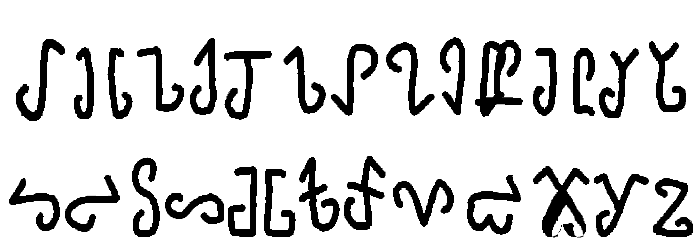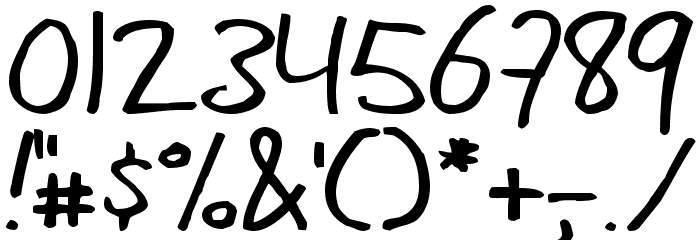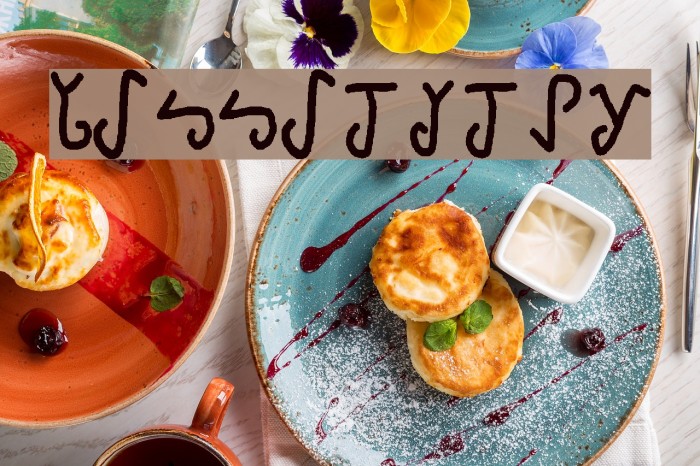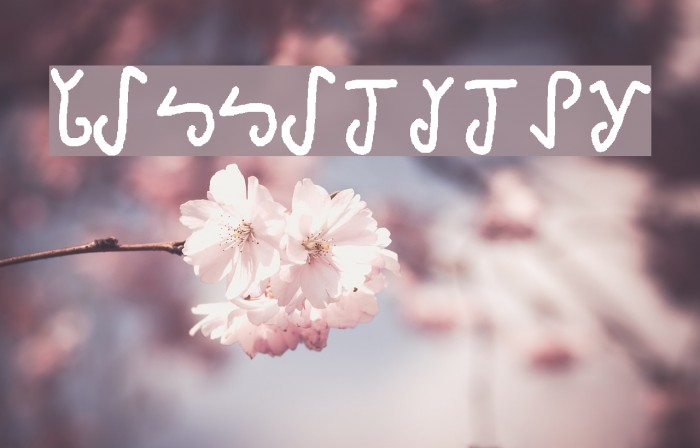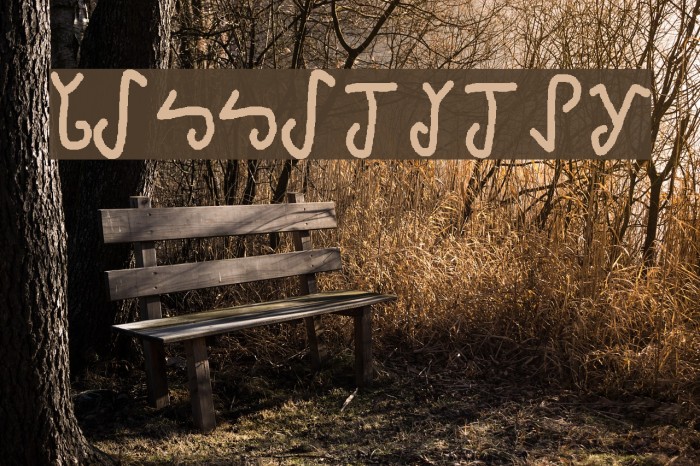
mannaelegy Font
This font features a playful and casual handwritten style, characterized by its irregular strokes and informal appearance. The letters are slightly slanted, adding a dynamic and lively feel to the text. The uppercase letters are bold and prominent, while the lowercase letters maintain a consistent flow with a touch of whimsy. The numbers are clear and legible, matching the overall playful aesthetic. Special characters are creatively designed, maintaining the font's unique personality. This font is perfect for projects that require a personal and approachable touch.
A playful, handwritten font with a casual and dynamic style.
- Proposed Projects: Ideal for greeting cards, children's books, casual invitations, and creative branding.
- Overall Style: Casual
- Use Case: Headlines, Logos, Informal Text